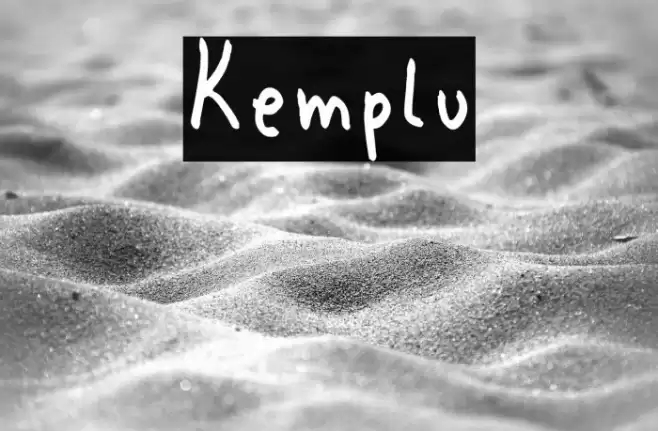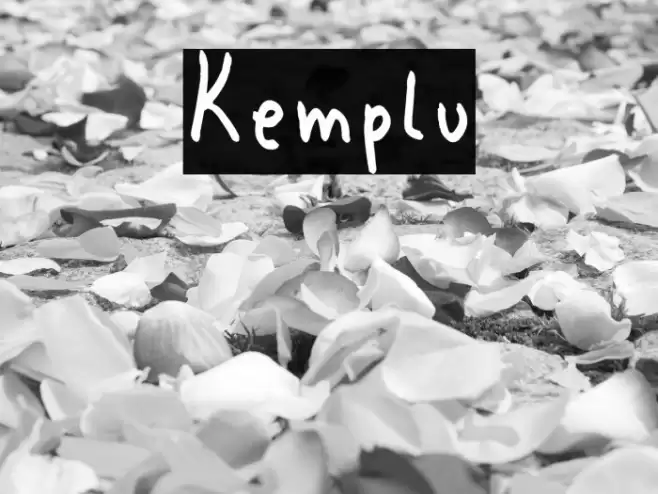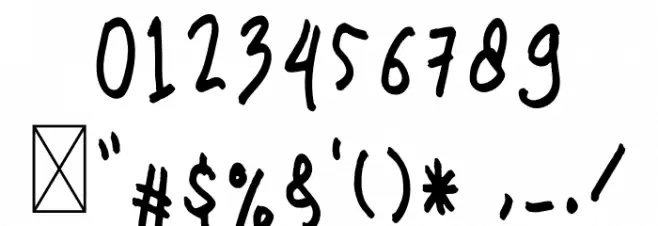
Kemplu Font
Kemplu Description
This font features a playful and casual handwritten style, characterized by its irregular strokes and organic flow. The letters vary in width and height, giving it a dynamic and lively appearance. The uppercase and lowercase letters maintain a consistent style, with rounded edges and a slightly tilted orientation, adding to its informal charm. Numbers and special characters follow the same aesthetic, ensuring a cohesive look across all characters. This font is ideal for projects that require a personal touch or a relaxed vibe, making it suitable for creative designs, invitations, and informal branding.
A playful, casual handwritten font with irregular strokes and an organic flow from Regular fonts.
- Proposed Projects: Ideal for creative designs, invitations, informal branding, and personal projects.
- Overall Style: Casual
- Use Case: Logos, Invitations, Creative Designs